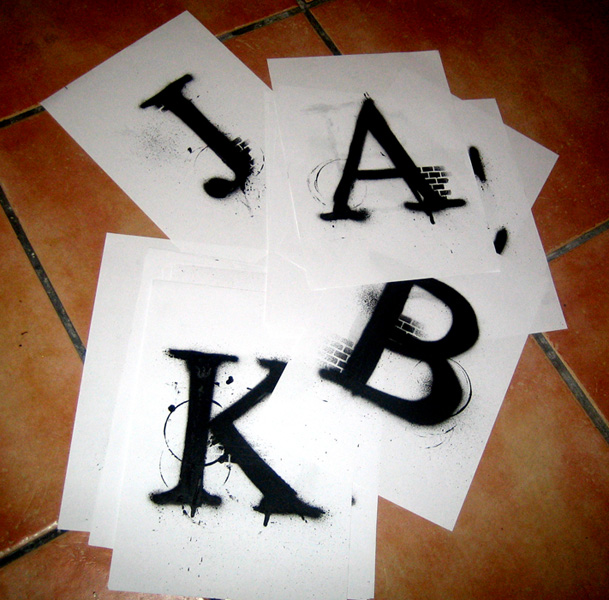
Preview and download Times New Yorker Font. Created by D.o.c.s in Fancy Eroded styles with 100% Free license.
Font name: | Times New Yorker |
This is a free font created by D.O.C.S It's a dirty graffiti version of Times New Roman. Thank you for downloading. ____________________________________________ Check the new shit at http://www.crookedshit.com ____________________________________________ |